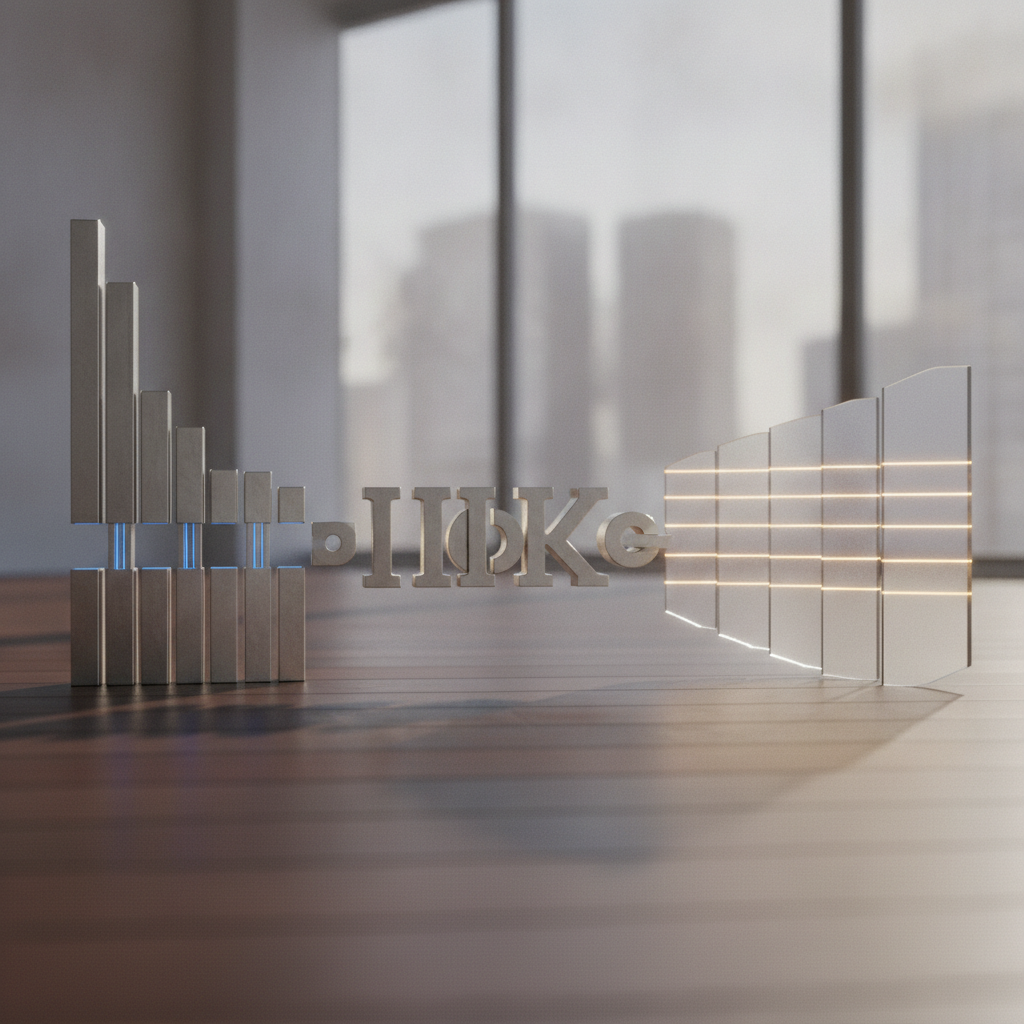
The Art of Spacing: Kerning, Tracking, and Leading
Understanding the Essentials of Typography
In the world of design, typography plays a crucial role in conveying messages effectively. Among the various elements of typography, the subtle details of kerning, tracking, and leading are often overlooked but are vital for creating visually appealing and readable text. These spacing adjustments can make or break a design, influencing how the audience perceives the information presented.
Kerning: The Importance of Individual Letter SpacingKerning refers to the adjustment of space between specific pairs of characters in a word. Proper kerning ensures that letters fit together harmoniously, enhancing readability and visual appeal. Poor kerning can lead to awkward letter spacing, making text difficult to read and distracting the viewer from the content itself.
“Kerning is like a handshake – it should be firm and confident, but not overpowering.”
When adjusting kerning, designers must consider the shape and style of the letters involved. Some letter combinations may require more space, while others might need to be pulled closer together. The goal is to create a balanced appearance that guides the reader's eye smoothly across the text.
While kerning focuses on specific letter pairs, tracking deals with the overall spacing of letters in a block of text. It is the uniform adjustment of space between all characters in a word or line. Tracking can dramatically impact the density and readability of text, making it a powerful tool for designers.
“Just as a well-placed comma can change the meaning of a sentence, proper tracking can alter the entire mood of a design.”
Increasing tracking can give text a more airy feel, while decreasing it can create a sense of urgency or compactness. Designers often adjust tracking to fit the context of the design, ensuring that the text aligns with the intended message and aesthetic.
Leading: The Space Between LinesLeading, pronounced “ledding,” refers to the vertical space between lines of text. Named after the strips of lead used in traditional typesetting, leading is crucial for improving readability and creating a comfortable reading experience. Insufficient leading can cause lines of text to blend together, making it challenging for readers to follow along.
“In typography, leading is the bridge that connects lines of text, guiding readers through the narrative.”
Effective leading varies based on the typeface, font size, and overall design. A general rule of thumb is to set leading at 120% to 145% of the font size for optimal readability. Designers must strike a balance between too much and too little leading to ensure that text flows naturally without overwhelming the reader.
Conclusion: The Power of Attention to Detail
In conclusion, kerning, tracking, and leading are essential aspects of typography that significantly impact design. By paying attention to these details, designers can enhance the clarity and aesthetics of their work, ensuring that the message is communicated effectively. As with any art form, the beauty of typography lies in its subtle nuances, and mastering these elements can elevate a design from ordinary to extraordinary.